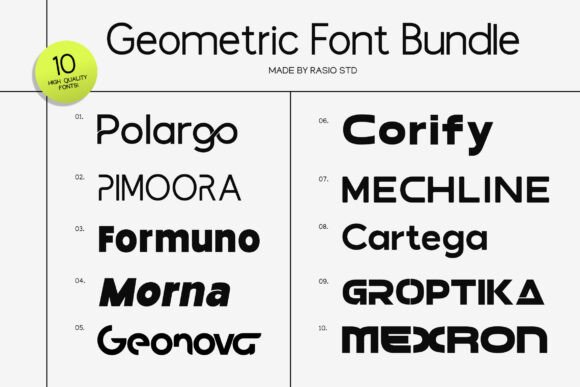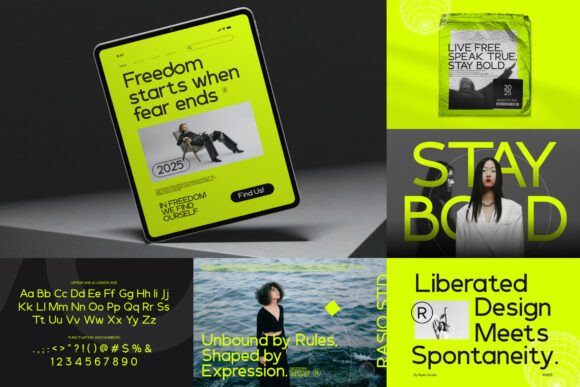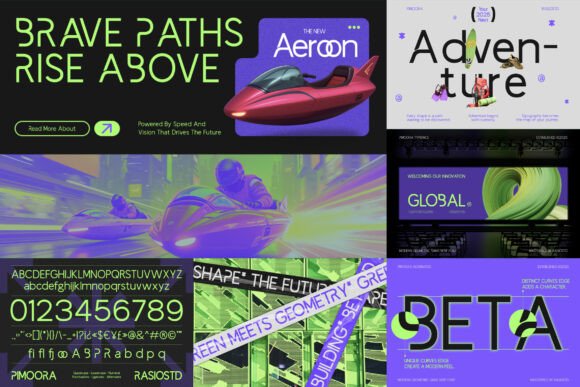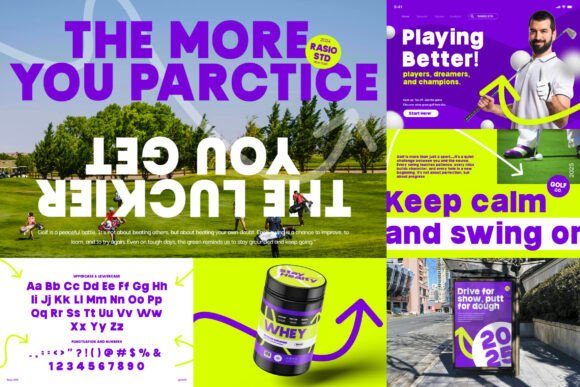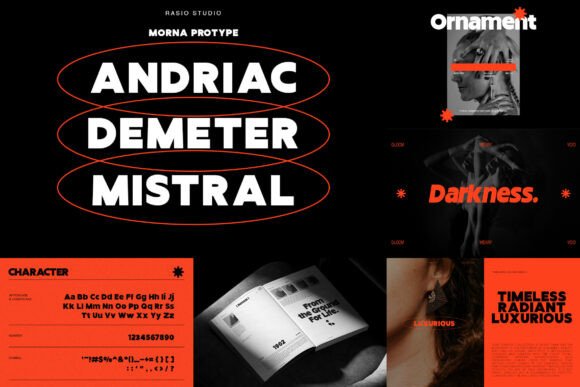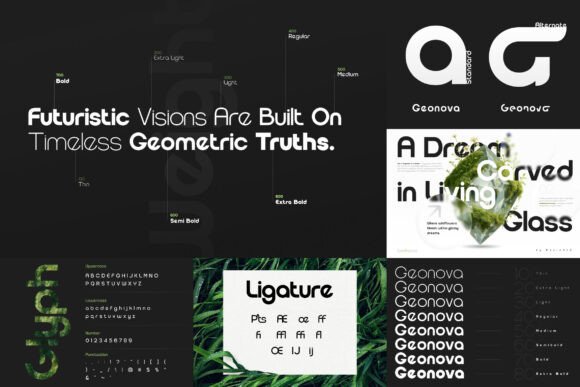
Introduction to Geometric Sans Serif Bundle Font Font
Fonts play a crucial role in design, and the Geometric Sans Serif Bundle Font font is a typeface that brings both character and versatility to any project. Whether you’re working on a branding project, a website, or a print design, the Geometric Sans Serif Bundle Font font offers a unique style that can elevate your work.
Geometric Sans Serif Font Bundle is a carefully curated collection of modern geometric typefaces designed for clean, structured, and contemporary visual communication.
Built with strong geometry, balanced proportions, and minimal aesthetics, this bundle is ideal for designers who value clarity and precision Each font in this bundle offers a distinct geometric personality ranging from soft rounded forms to sharp futuristic structuresโmaking it highly versatile for both digital and print projects.
Key Features of Geometric Sans Serif Bundle Font Font
- โ High-quality typeface designed for professional use
- โ Includes a wide range of glyphs and characters
- โ Ideal for logos, branding, websites, and print
Why Choose Geometric Sans Serif Bundle Font Font?
The Geometric Sans Serif Bundle Font font is more than just a typeface โ it’s a design tool that helps you communicate your message with style and clarity. Its unique character set and versatile design make it suitable for a wide range of applications, from elegant invitations to bold headlines.
With its carefully crafted letterforms and balanced proportions, the Geometric Sans Serif Bundle Font font ensures readability and visual appeal across all mediums.
What makes Geometric Sans Serif Bundle Font font special?
The Geometric Sans Serif Bundle Font font stands out with its unique design, exceptional readability, and versatility across various design applications.